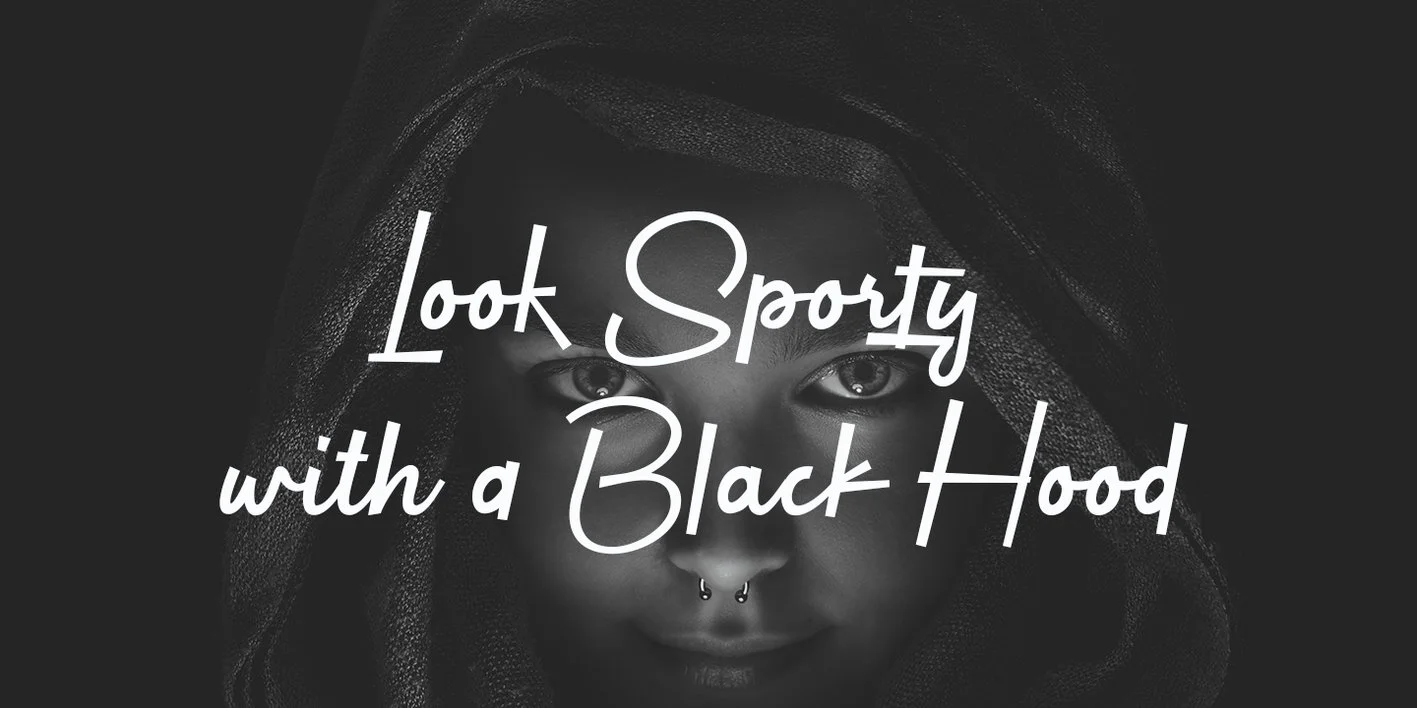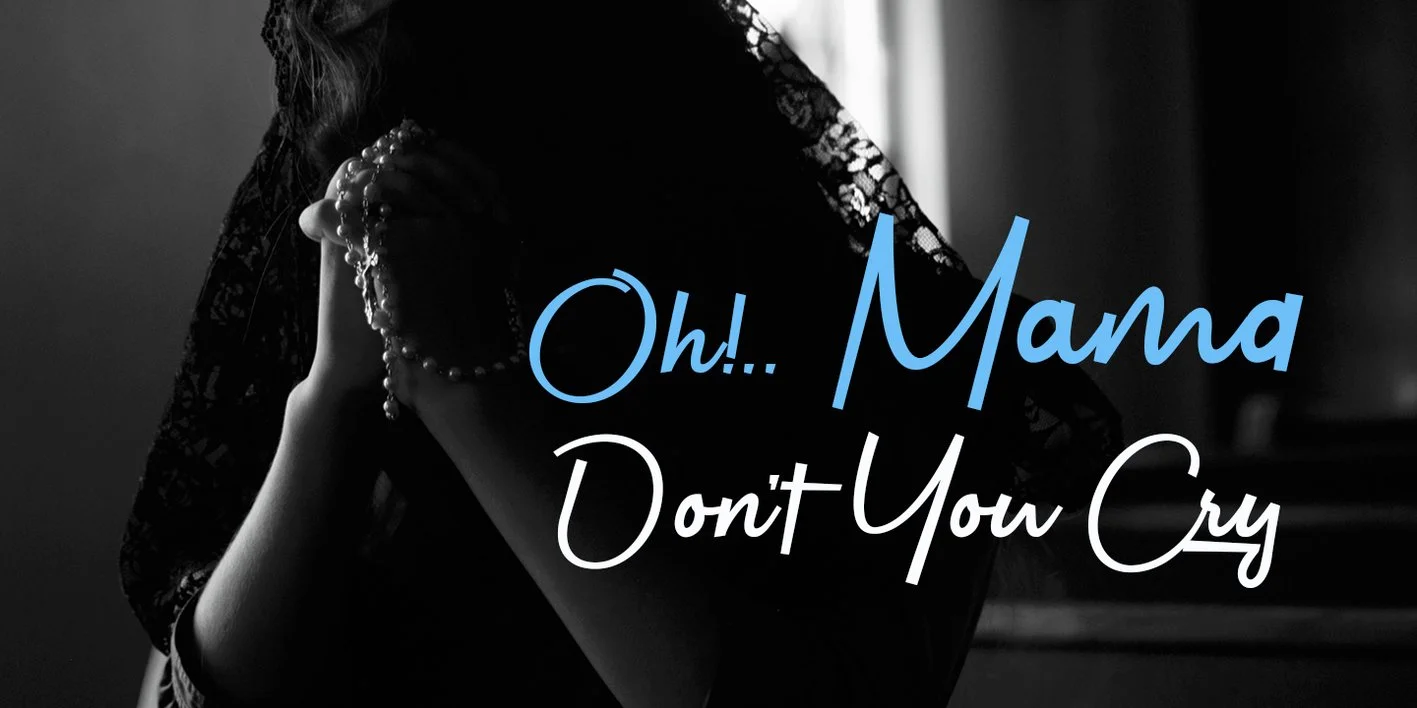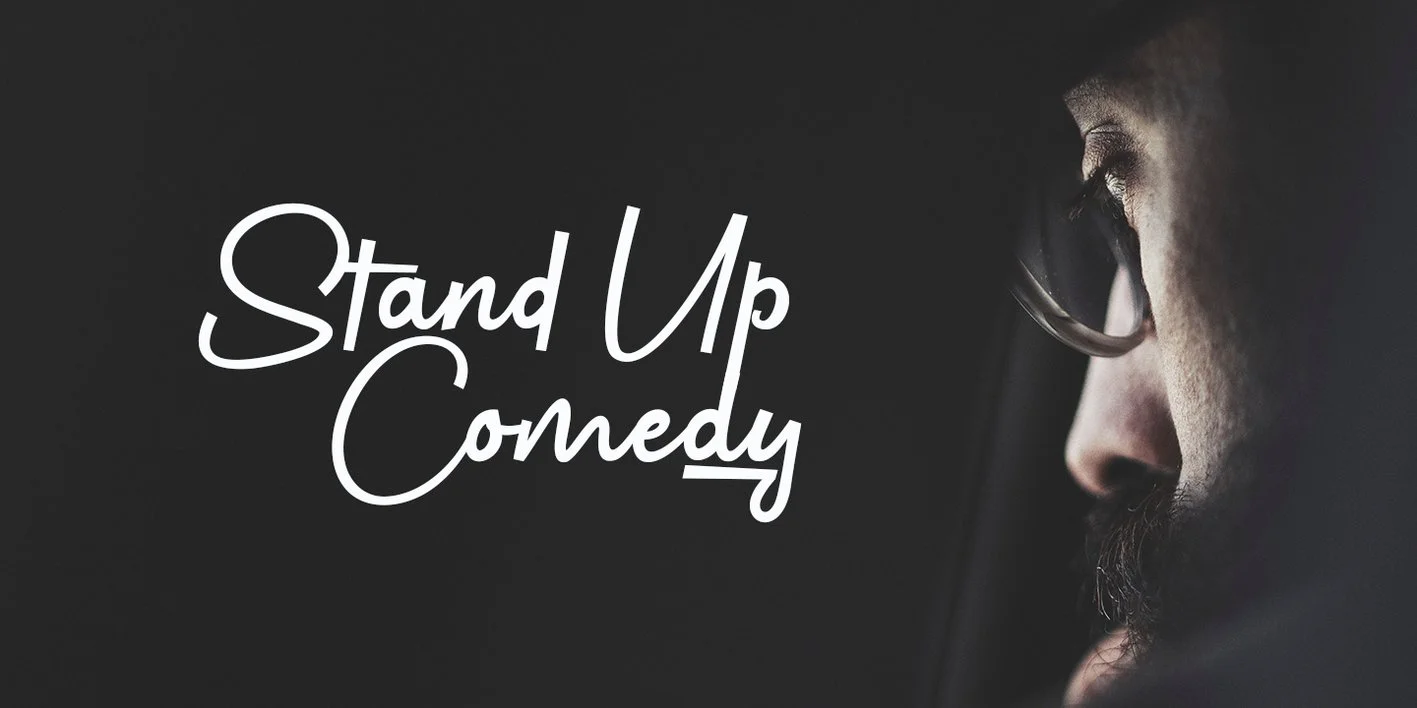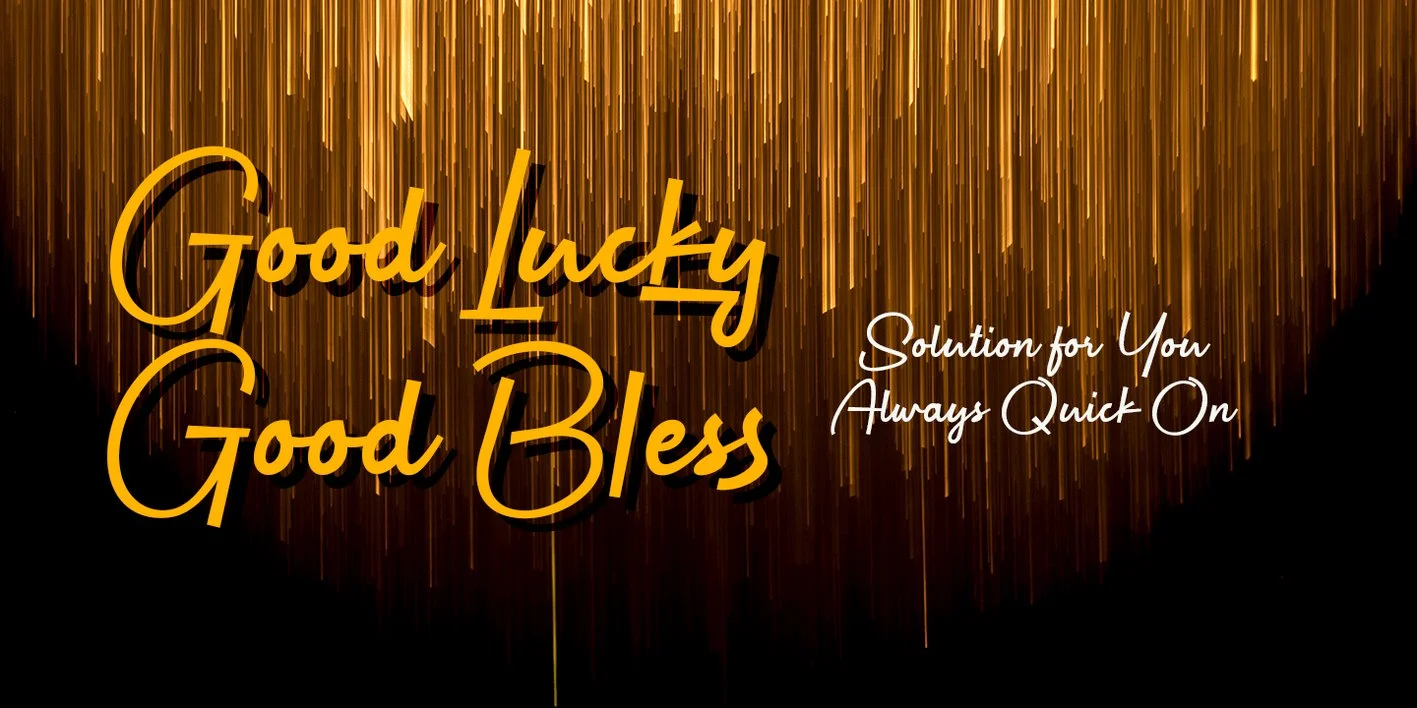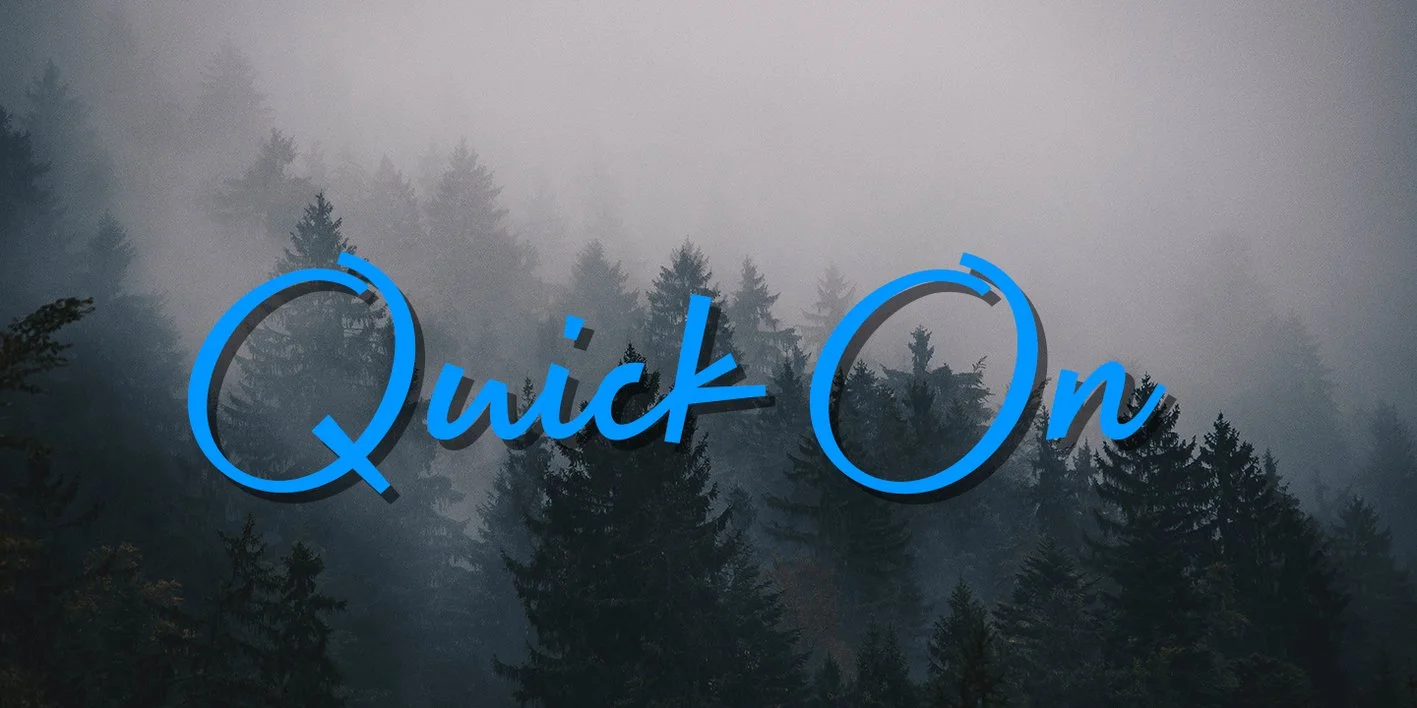
Quick On Font
When a design brief calls for both versatility across print and screen contexts and immediate visual impact, type choices matter — Quick On answers that brief. The typeface brings an elegant, calligraphic sensibility to a broad range of creative disciplines, with visual harmony and precise spacing that holds up whether the work is print-first or screen-first.
In practice, Quick On proves particularly effective for product labels, environmental graphics, high-end cosmetic packaging, fragrance labels, perfume labels. Designers reaching for it find that the type decisions feel resolved rather than laboured — a useful quality when client timelines are tight.
The range of applications extends to fashion editorials, brand identity systems, poster creation, logo design. That breadth is deliberate: the proportions and spacing were stress-tested across a wide range of mock briefs before the typeface was finalised.
Ascenders and descenders are drawn with generous extents that give the script its characteristic rhythm. Ligature pairs have been individually tested to prevent collisions, and the baseline is slightly bounced to suggest a natural, unhurried hand.
At smaller sizes the design retains its character without becoming cluttered. This resilience across scales makes Quick On equally suitable for a business card and a billboard — a useful property when assets must scale across a campaign.
Brand strategists building visual languages find Quick On a reliable choice for projects that demand both personality and restraint. The design avoids the self-conscious quirkiness that dates quickly, settling instead for considered distinctiveness that holds up over time.